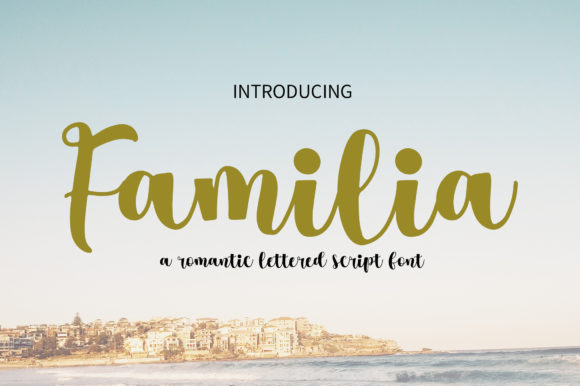
Familia Font
Introducing Familia Font, a script font family that will ignite your imagination and leave you breathless. Its intricate, delicate strokes exude elegance and romance, captivating anyone who lays their eyes upon it. Crafted with the utmost care, Familia is a true masterpiece, seamlessly weaving together beauty and functionality.
With Familia, the possibilities are endless. Let your creativity run wild as you design breathtaking wedding invitations, logos, posters, and social media graphics that will leave a lasting impression. Its graceful curves and exquisite details make it the perfect choice for creating heartfelt and personalized designs that speak to the heart.
Whether you're a seasoned designer or just starting out, Familia is incredibly versatile, offering a wide range of options to suit any project. Its beautiful, flowing letters create a timeless aesthetic that never goes out of style, ensuring that your designs will stand the test of time.
But Familia isn't just another font; it's an experience. Its unique charm and captivating beauty will transport you to a world of elegance and sophistication. Feel the love and passion poured into every letter as you bring your creative visions to life.
So dive into the enchanting world of Familia Font and unlock the power of timeless beauty. From delicate wedding invitations to bold and captivating logos, let this remarkable font elevate your designs to new heights. Embrace the journey and create something truly extraordinary.